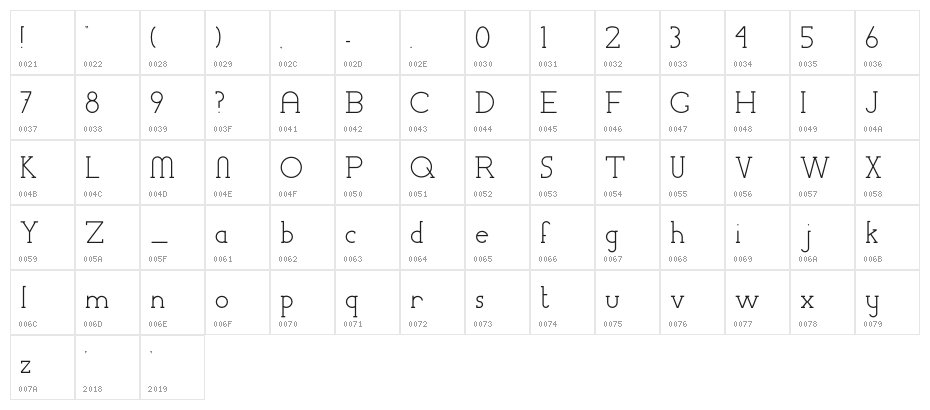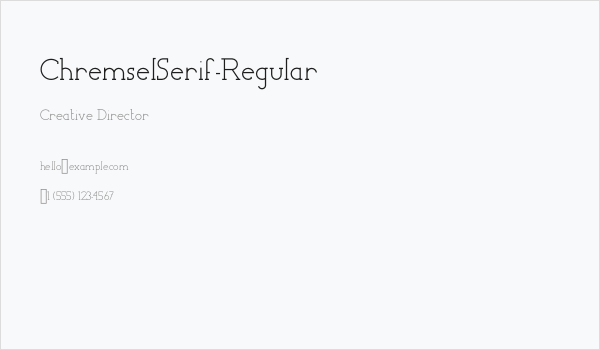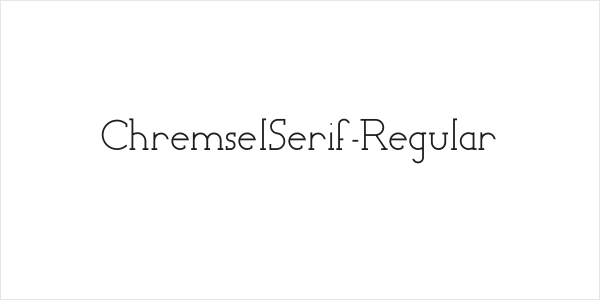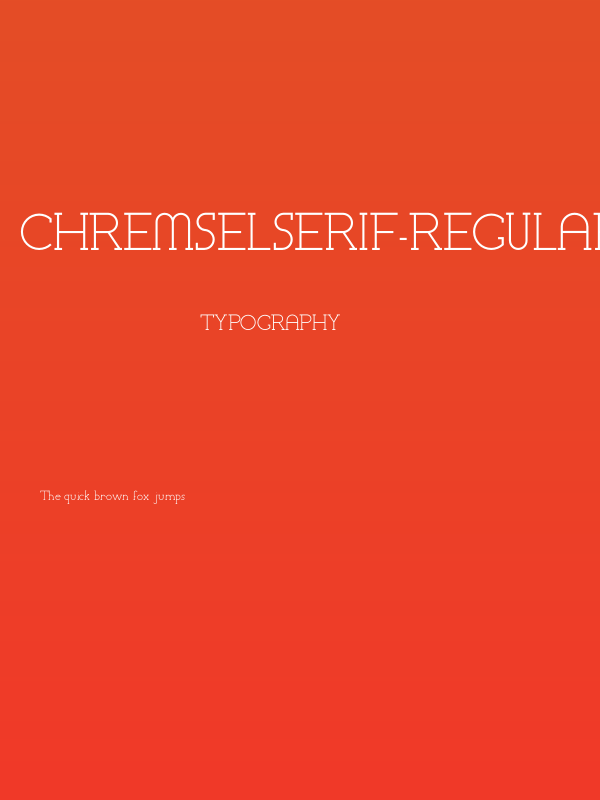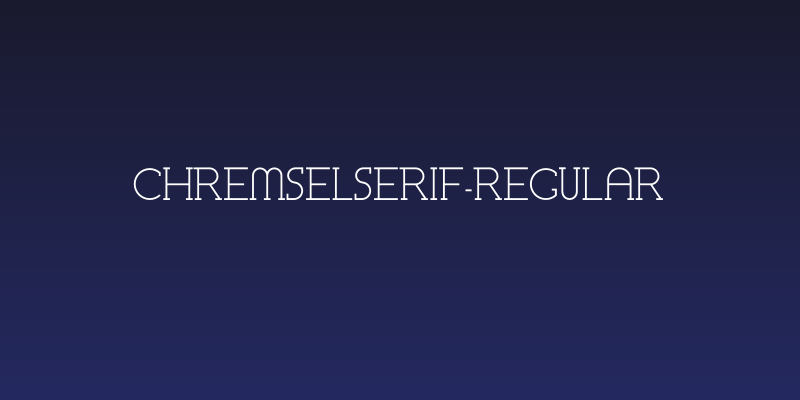
ChremselSerif-Regular Font
ChremselSerif-Regular Description
This font features a unique blend of classic serif elements with a modern twist. The uppercase letters are characterized by their tall, elegant forms with subtle curves and sharp serifs that add a touch of sophistication. The lowercase letters maintain a consistent style, offering a harmonious balance between readability and aesthetic appeal. The numerals are clean and straightforward, complementing the overall design. Special characters are thoughtfully designed to match the font's refined style, making it versatile for various applications.
| Proposed Projects | Ideal for branding, editorial design, and elegant invitations. |